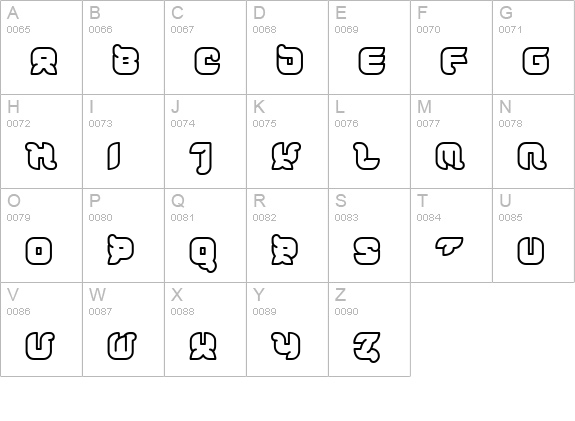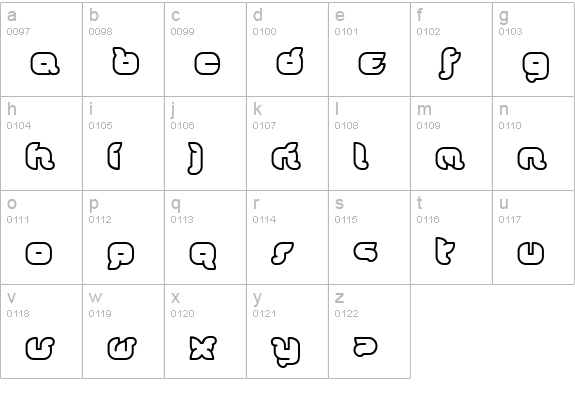
DorisOrangeJuicy Font Details
Introducing DorisOrangeJuicy font, a delightful and playful typeface that is sure to add a burst of energy to your design projects. This unique font features bold and juicy letters, with a touch of whimsy that will make any text stand out. Perfect for children's books, posters, logos, and more, DorisOrangeJuicy font is a versatile choice for any creative project. What's even better is that DorisOrangeJuicy font is completely free to download at FontsMarket.com. So go ahead and add a splash of fun to your designs with this vibrant and eye-catching font today!